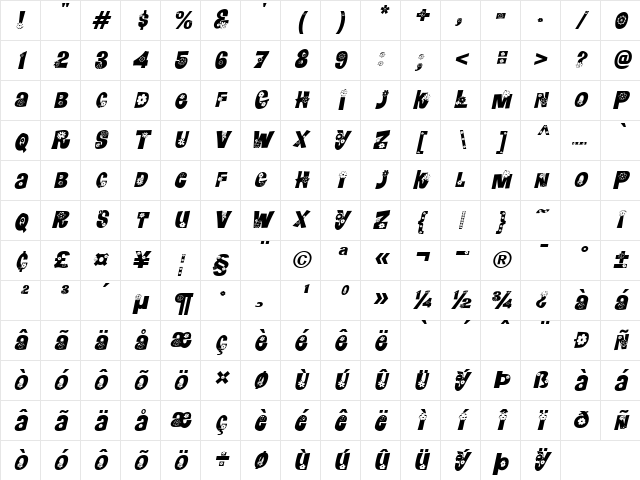
FlowerPower Italic
Design Context for FlowerPower
FlowerPower brings high-energy athletic personality to the page - its confident, muscular forms are built for impact. The slanted form adds forward momentum and visual energy.
Pro Tip: Use FlowerPower in all-caps headlines where its athletic energy can fully express itself. Pair with a solid, simple sans for supporting text.